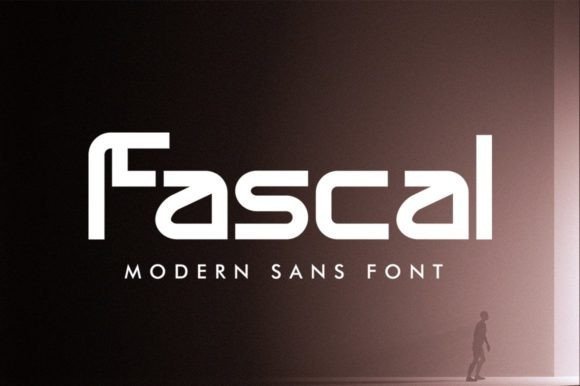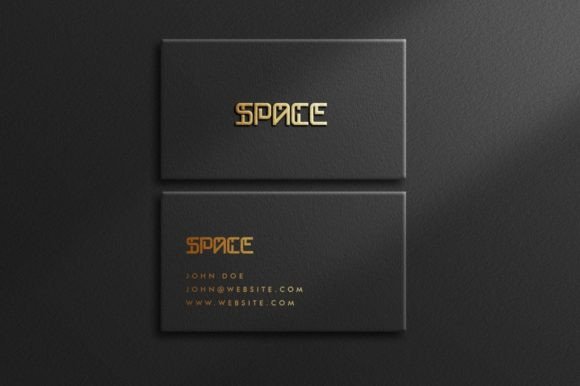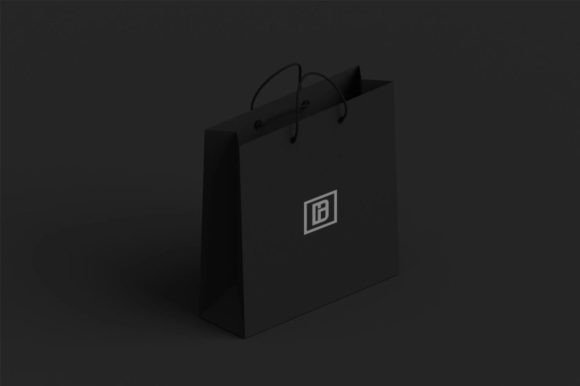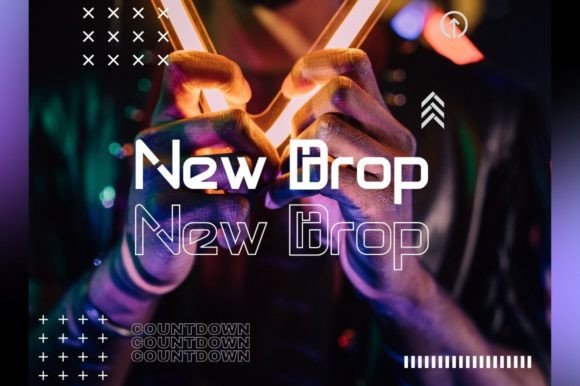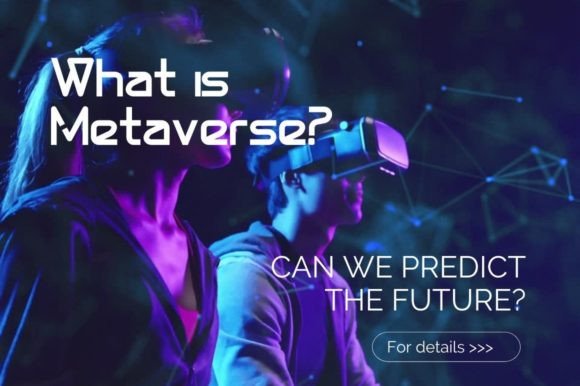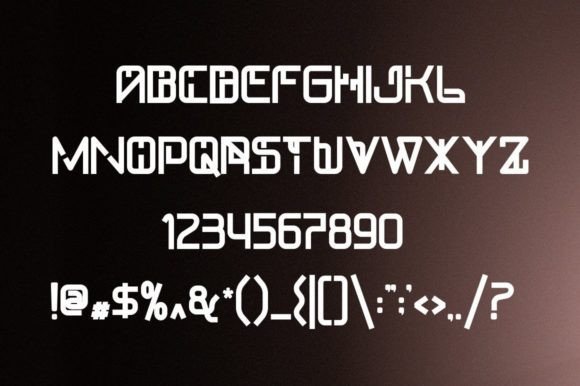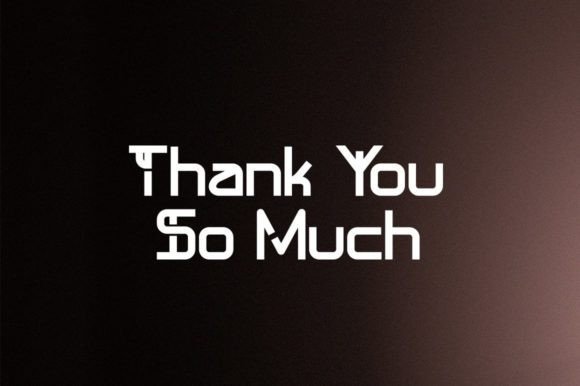
Unlocking the Future of Typography: Introducing Fascal Font
Have you ever been stuck on a design project, unable to find the perfect font to bring your vision to life? You’ve spent hours scrolling through font libraries, only to end up with something that’s just…fine. But what if I told you there’s a font that can take your design to the next level? A font that’s out of this world, yet still grounded in functionality.
Meet Fascal Font, a sans serif font with a twist: its unique lowercase letters are designed to make your design look futuristic and modern. Whether you’re working on a logotype, a website, or a marketing campaign, Fascal Font is the perfect choice. Its versatility and sleek design make it an invaluable asset for any designer looking to create something truly special.
Fascia Font Key Features
- Unique Characteristics: Fascia Font features a unique blend of modern and traditional design elements, with a focus on clean lines, geometric shapes, and subtle texture.
Fascal Font Review
Overall, I was excited to dive into the Fascal Font and see what it had to offer. Here’s my honest review.
- The Fascal Font has a unique, modern aesthetic that’s perfect for contemporary designs.
- The font is highly legible, even at smaller font sizes, making it ideal for body text.
- The font family includes a range of weights and styles, providing plenty of flexibility for designers.
- The font is well-suited for digital applications, with crisp lines and clear typography.
- The font may not be the best choice for traditional or formal designs, where a more classic look is desired.
- The font’s unique style may not appeal to all audiences, and some users may find it too bold or distracting.
- The font family is relatively small compared to other popular font families, which may limit its versatility.
The Fascal Font is a solid choice for designers looking for a modern, legible font. While it may not be suitable for every project, it’s a great option for contemporary designs and digital applications. With its unique aesthetic and wide range of weights and styles, the Fascal Font is definitely worth considering for your next design project.
The Fascal Font is ideal for:
- Creating modern and sleek designs.
- Adding a touch of sophistication to your typography.
- Designing logos, branding materials, and marketing collateral.